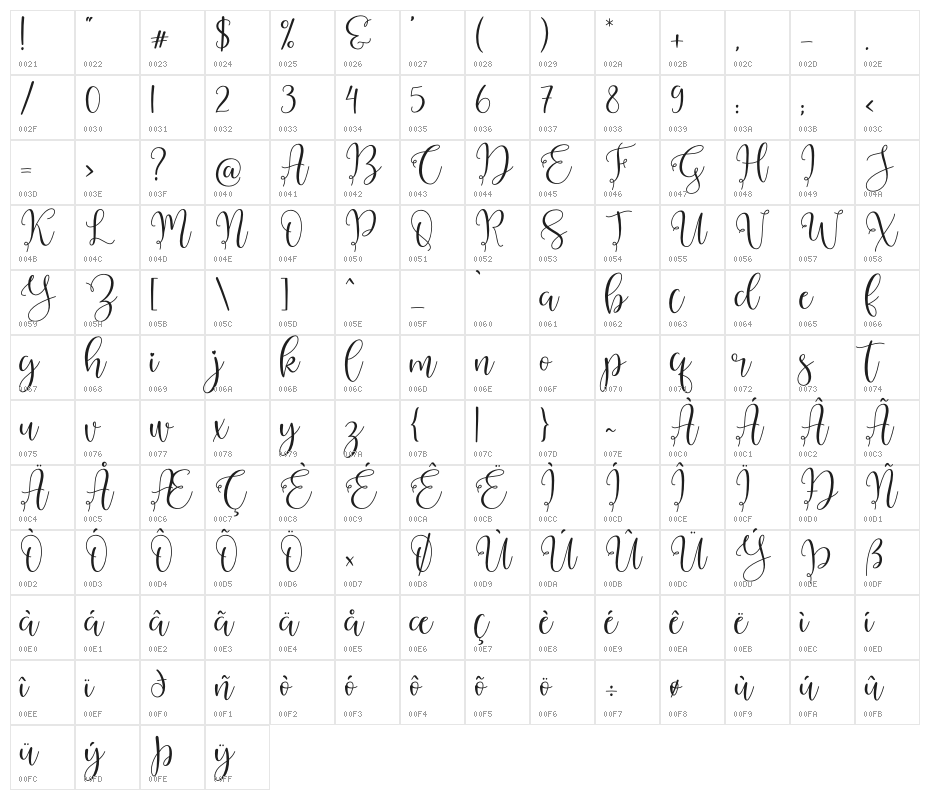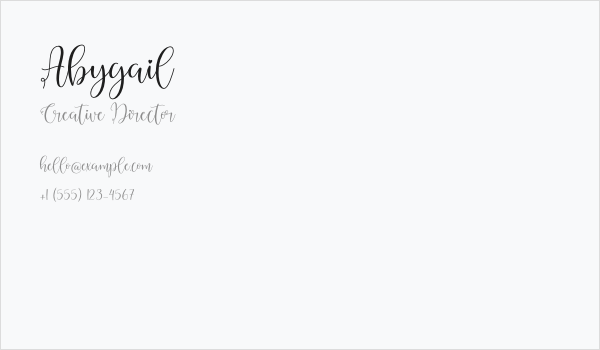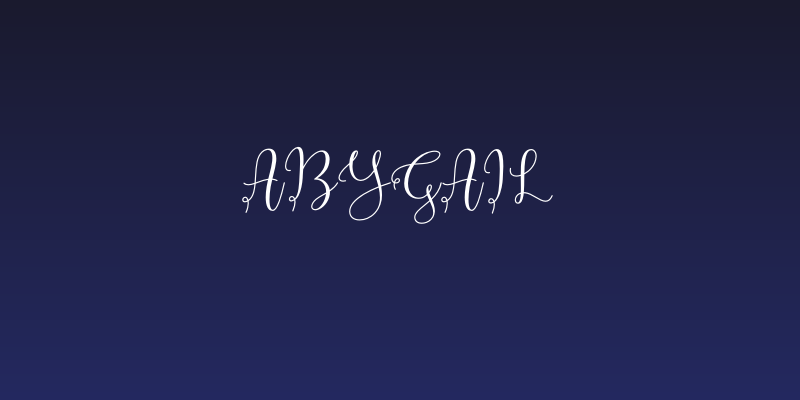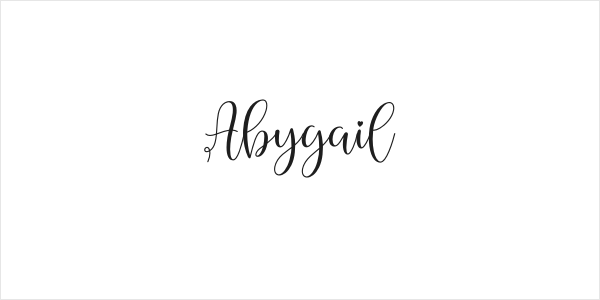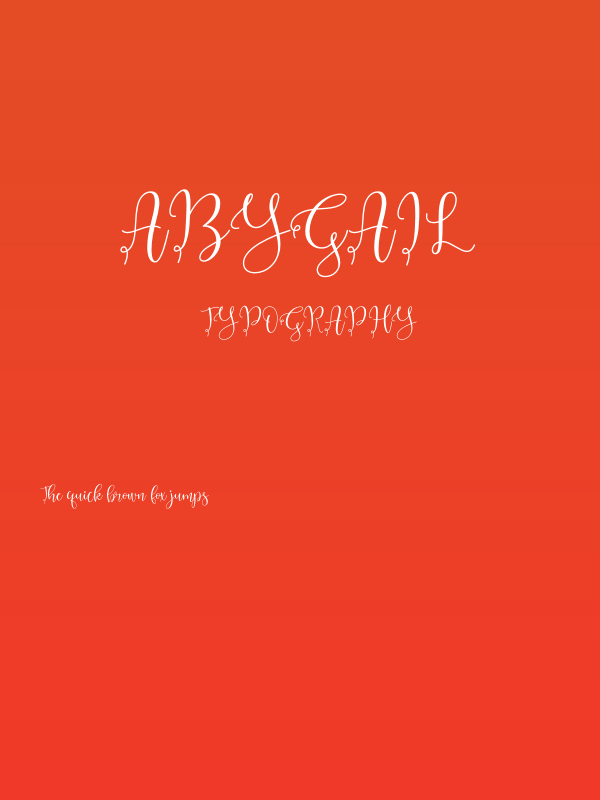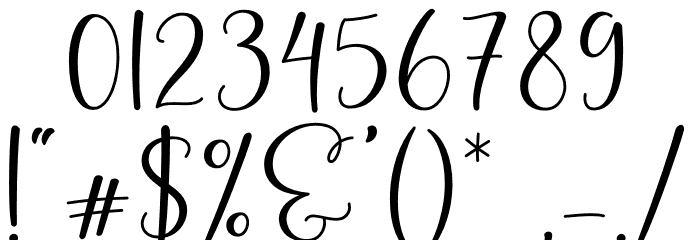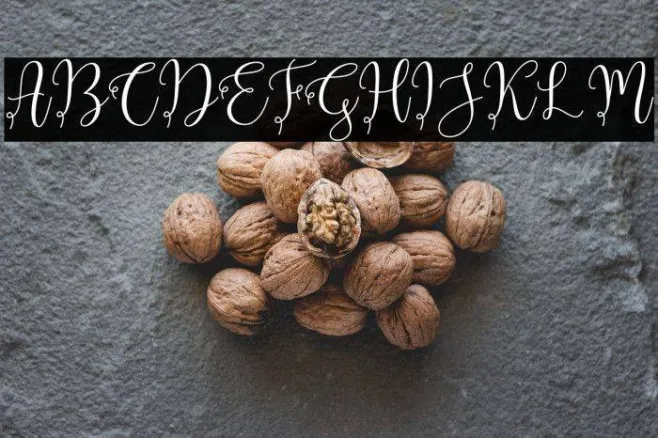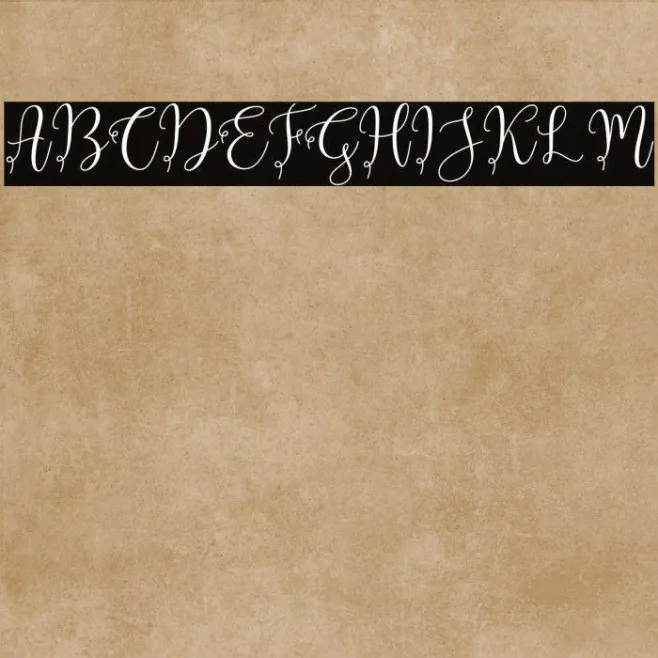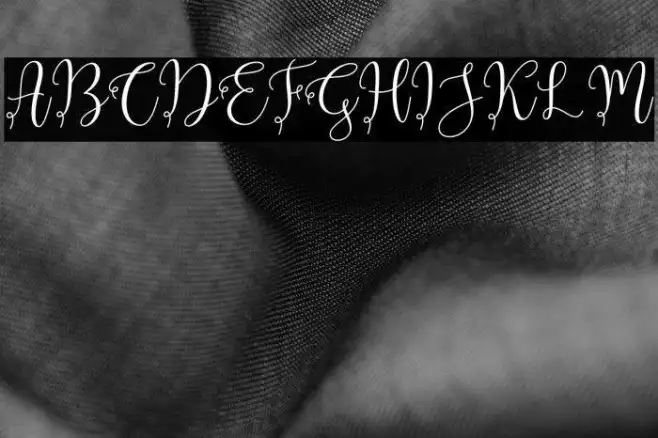
Abygail Font
Abygail Description
This elegant script font features a flowing, cursive style with intricate loops and swirls, giving it a sophisticated and artistic appearance. The uppercase letters are adorned with decorative flourishes, while the lowercase letters maintain a smooth, connected flow, enhancing its calligraphic charm. The numerals are consistent with the overall style, offering a harmonious blend of curves and lines. Special characters are thoughtfully designed to match the font's aesthetic, making it versatile for various creative applications. Its handcrafted feel adds a personal touch, ideal for projects that require a touch of elegance and creativity.
ABYGAIL UPPERCASE
ABYGAIL LOWERCASE
ABYGAIL OTHER CHARS